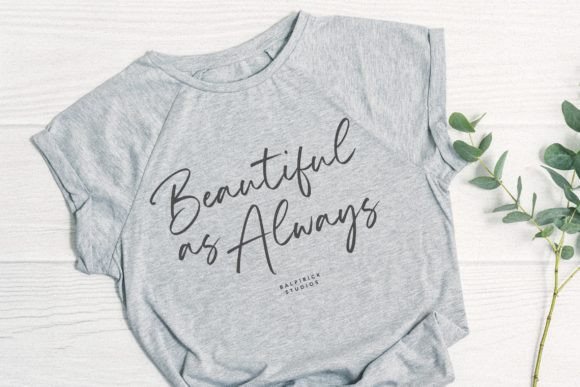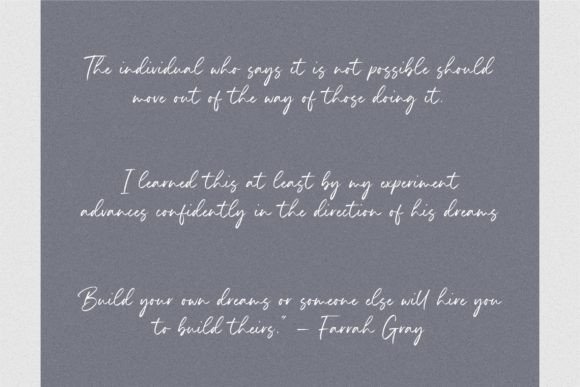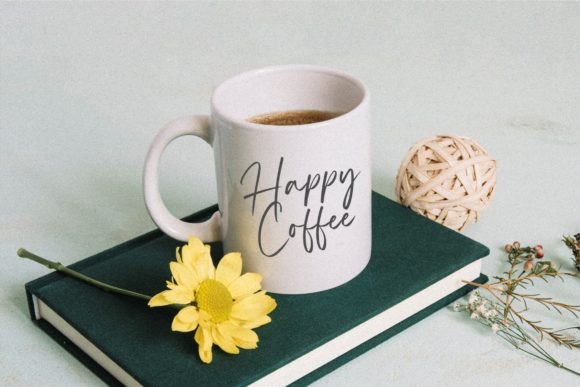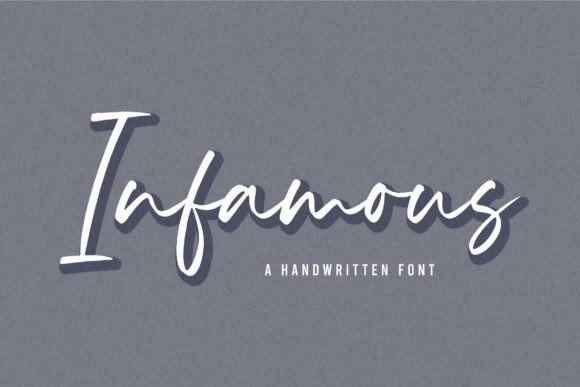
Introduction to Infamous Font
Elevate your designs with our cursive and stylish script font, perfect for adding a touch of elegance and sophistication.
Infamous’s flowing lines and ornamental details create a sense of refinement and charm, making it ideal for wedding invitations, greeting cards, and branding materials that require a touch of luxurious flair Get ready to make a statement with this font.
Key Features of Infamous Font
Why Choose Infamous Font?
Infamous Font offers exceptional quality and versatility, making it a valuable addition to your design toolkit. Whether you’re creating for personal projects or commercial use, Infamous Font delivers professional results.